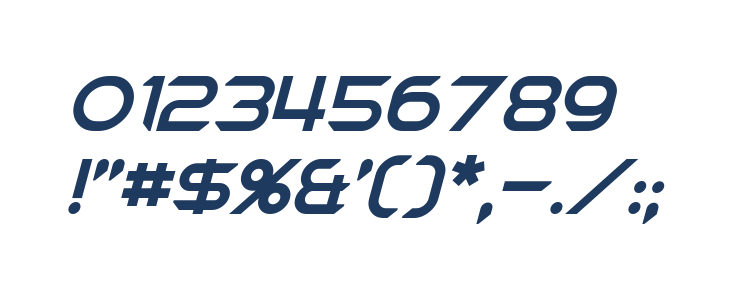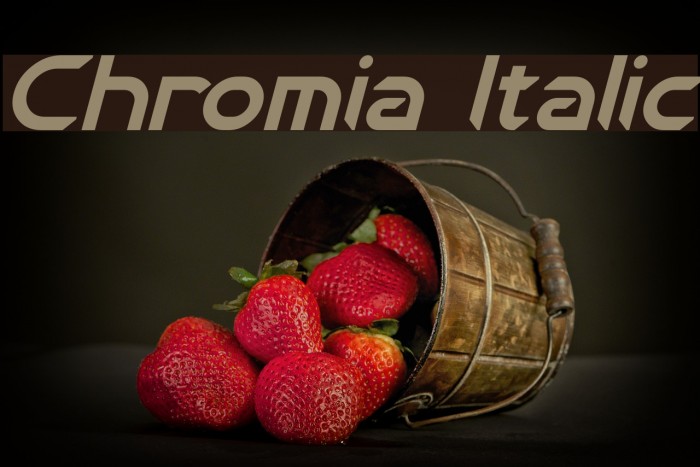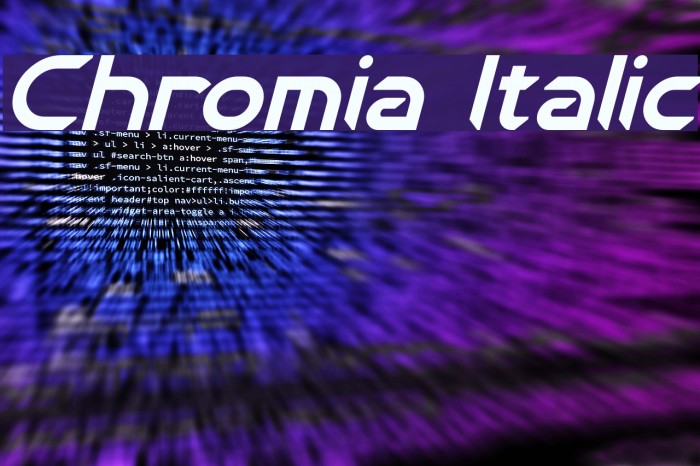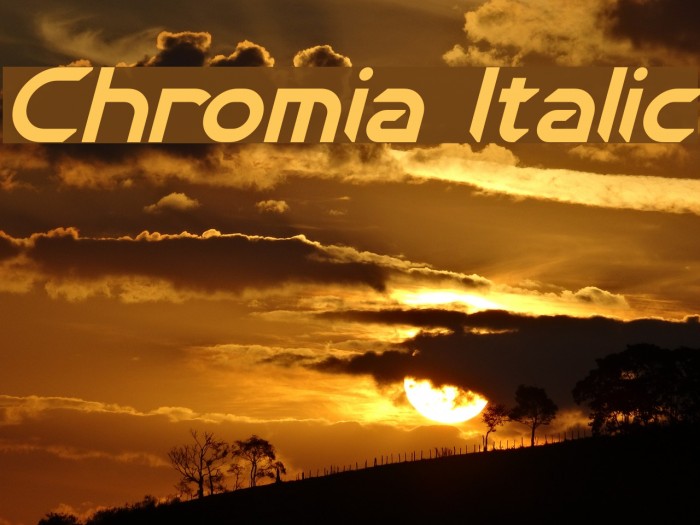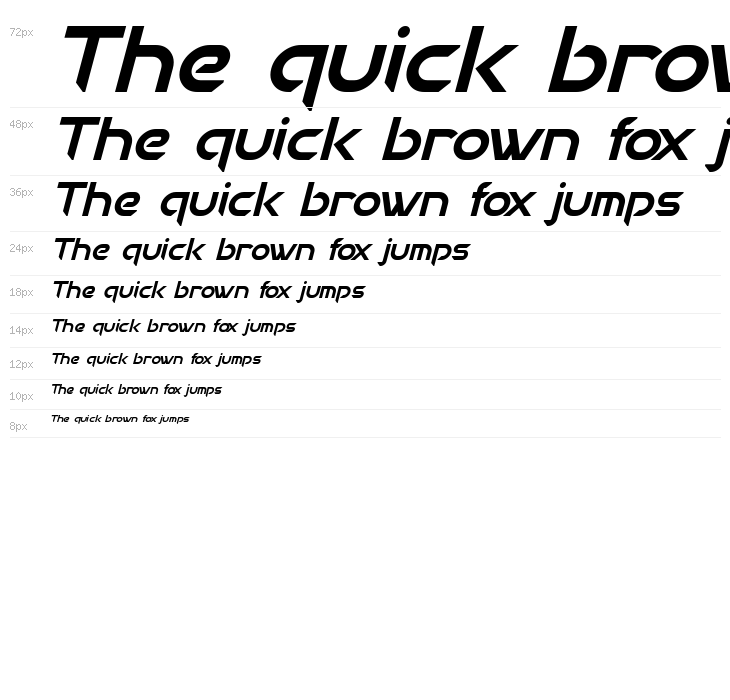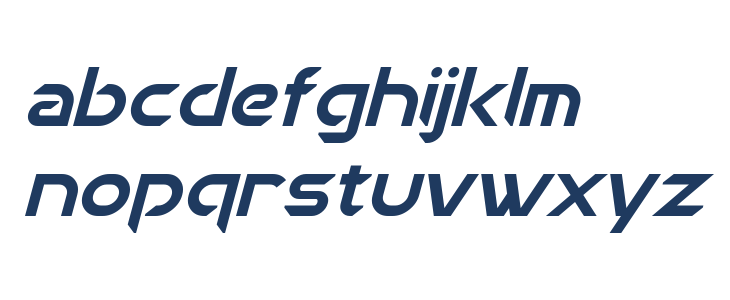
Chromia Italic Font
Chromia Italic Description
This font features a modern, italicized style with a sleek and futuristic appearance. The characters are slightly slanted, giving a sense of motion and dynamism. The strokes are consistent in thickness, providing a uniform look across all characters. The uppercase and lowercase letters maintain a cohesive design, with sharp angles and clean lines. The numerals and special characters are designed to match the overall aesthetic, ensuring a harmonious appearance throughout. This font is ideal for projects that require a contemporary and edgy feel.
| Use Case | Headlines, Logos, Digital interfaces |
| Proposed Projects | Ideal for technology branding, sci-fi themed projects, modern advertising, and digital interfaces. |